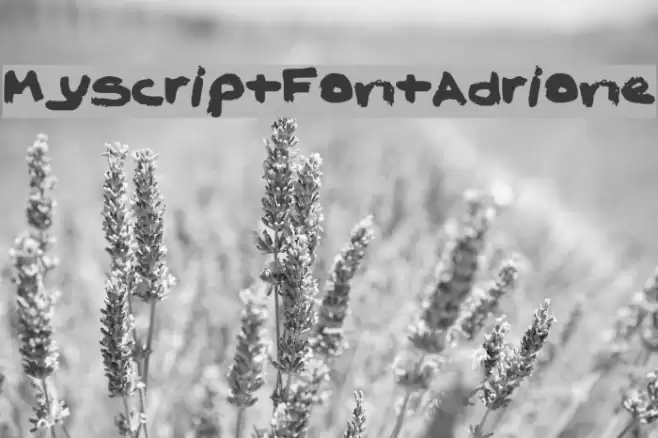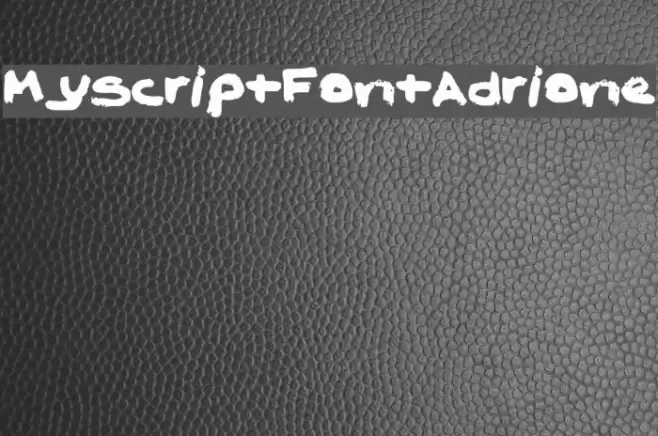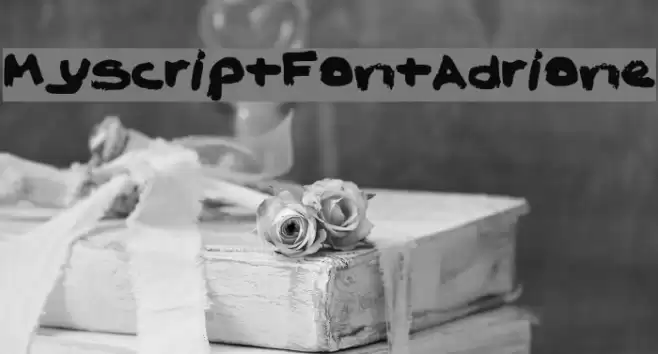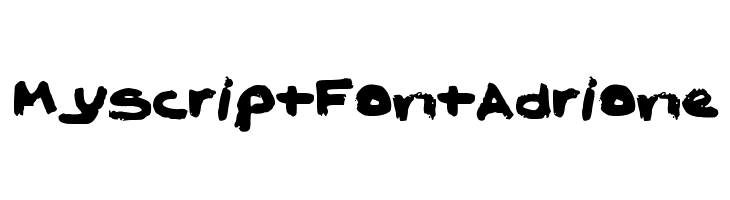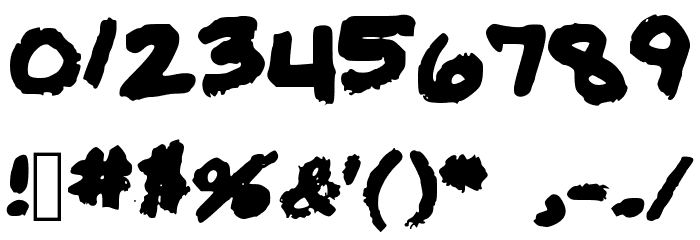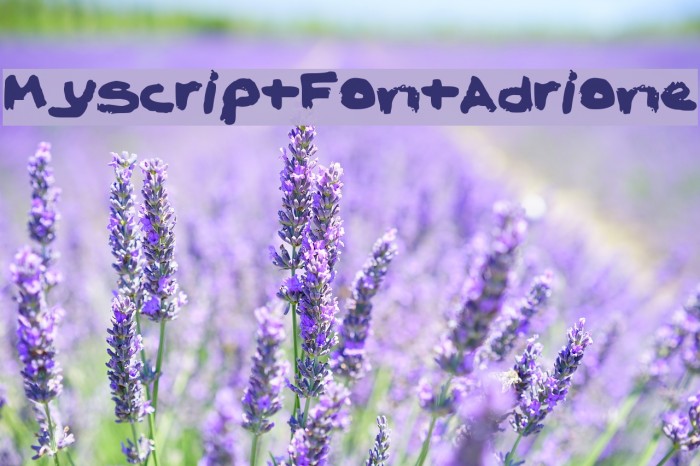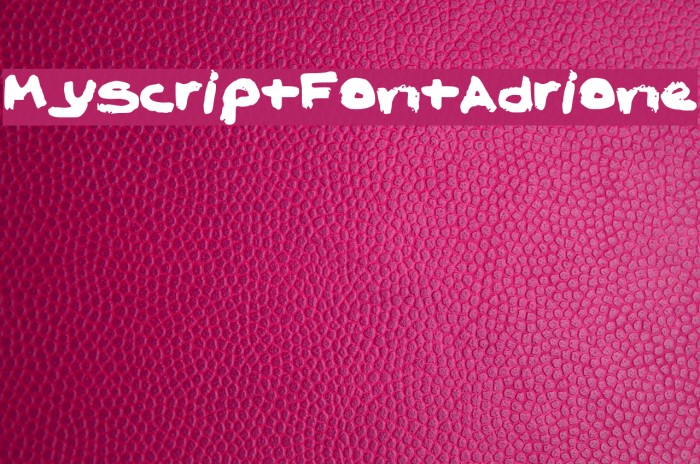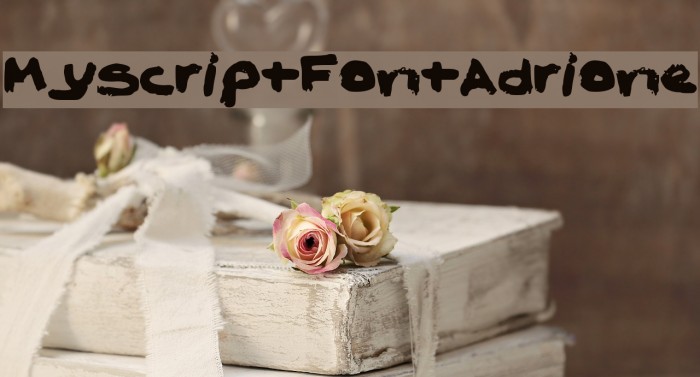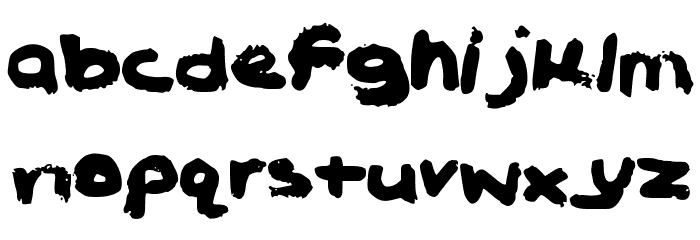
MyScriptFontAdrione Font
MyScriptFontAdrione Description
This font features a bold, expressive style with a hand-painted appearance. The characters are irregular and dynamic, giving a sense of movement and energy. The strokes are thick and uneven, creating a textured look that resembles brush strokes. This font is highly distinctive and artistic, making it ideal for creative projects that require a personal touch. The uppercase and lowercase letters maintain a consistent style, while the numerals and special characters complement the overall aesthetic. The font's unique character makes it stand out, perfect for designs that aim to capture attention.
A bold, hand-painted style font with expressive, textured strokes from Uncategorized fonts.